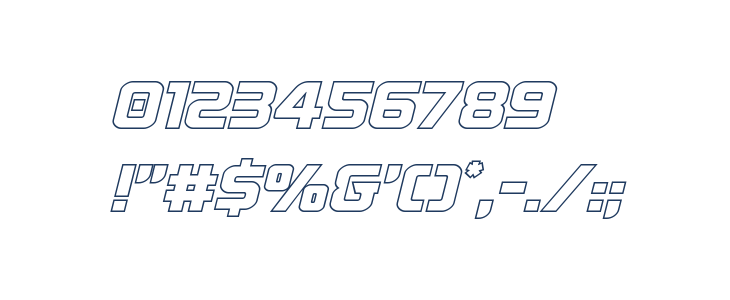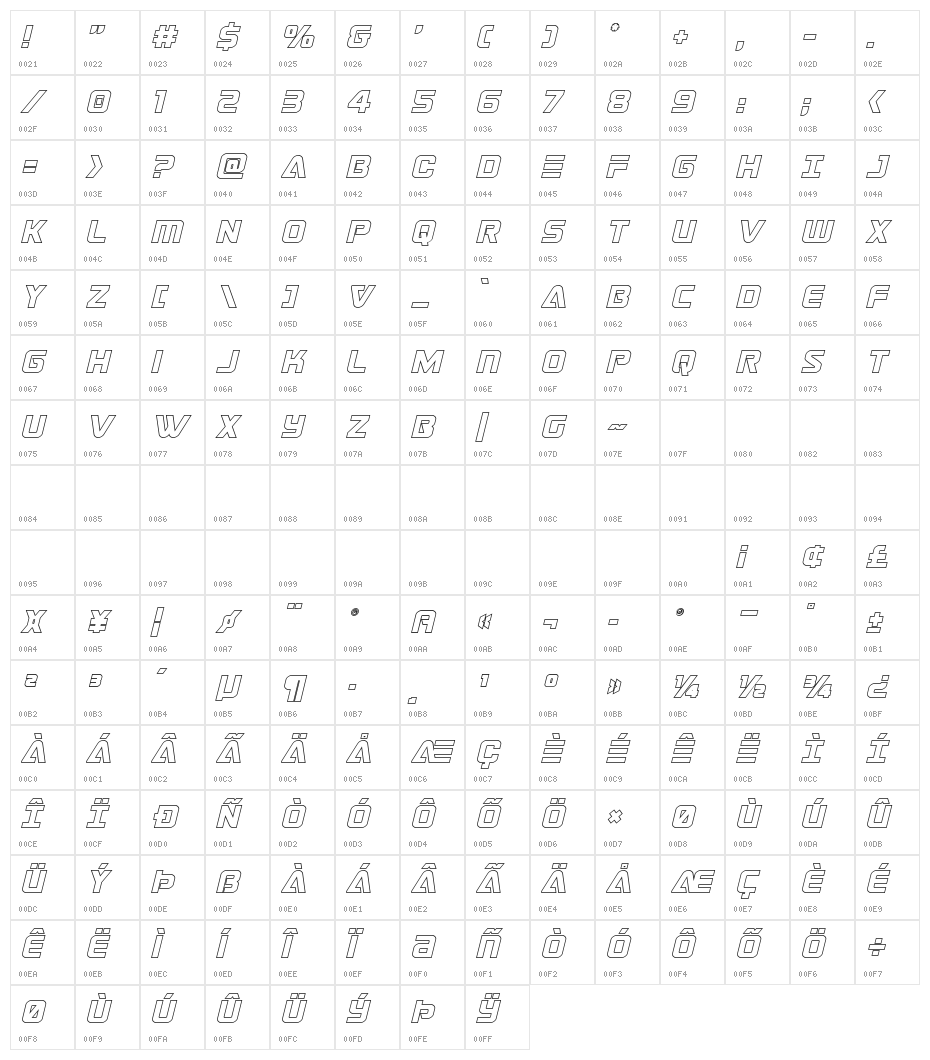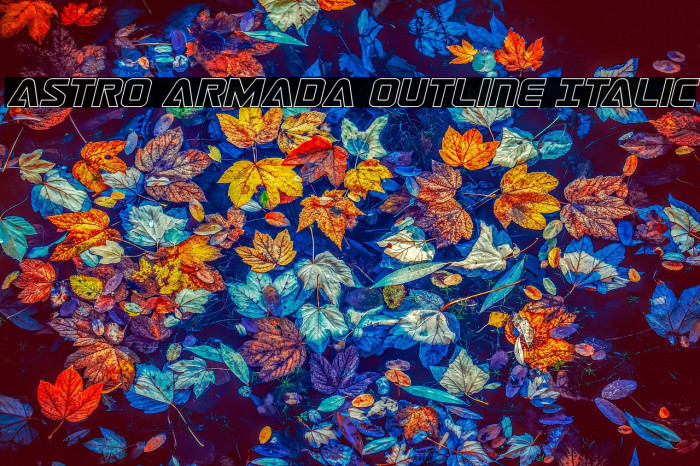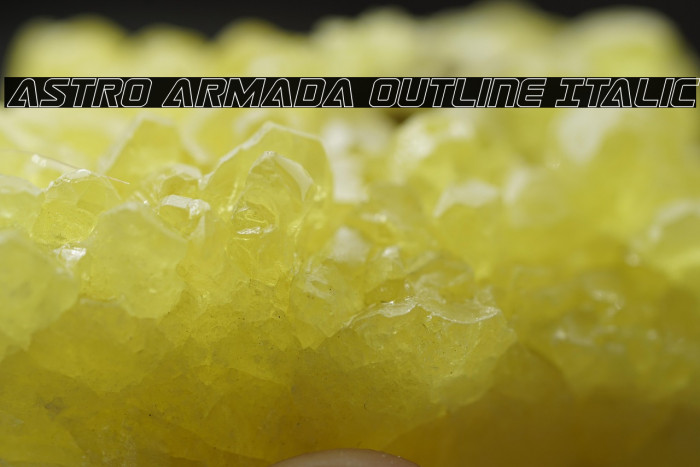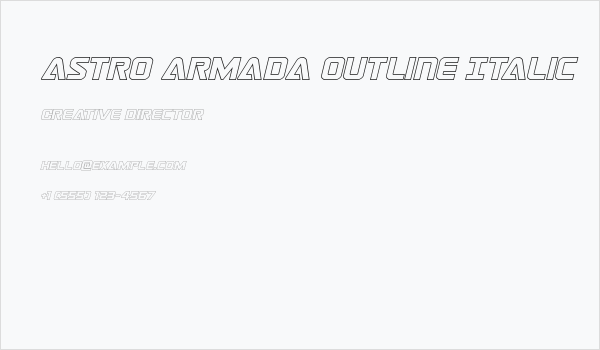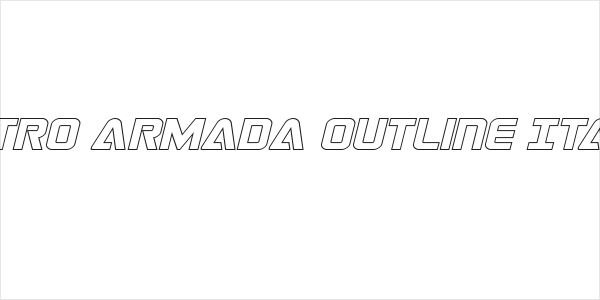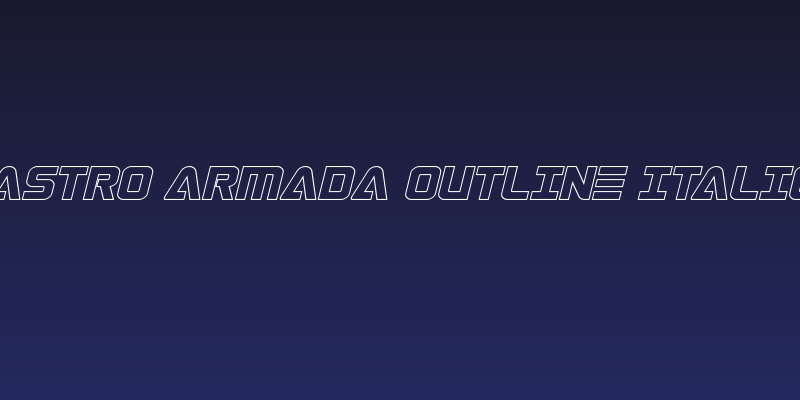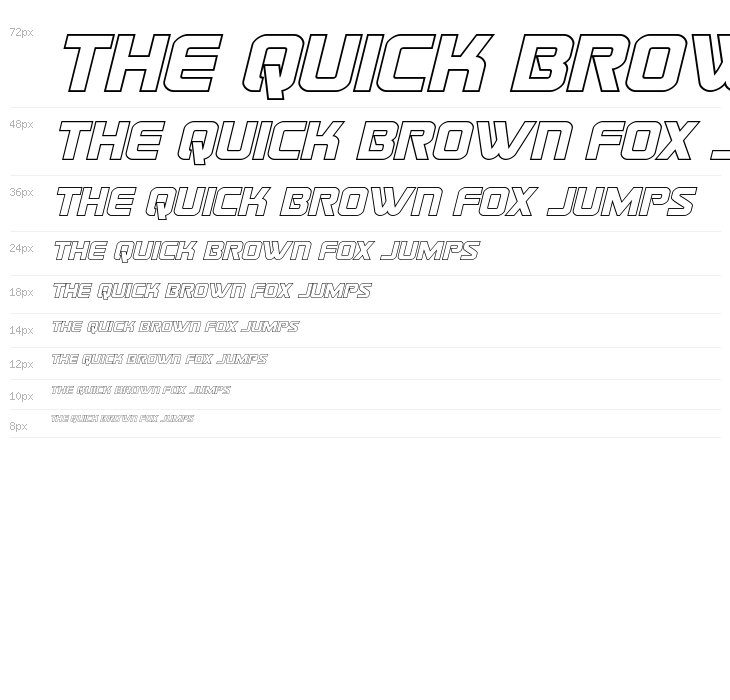
Astro Armada Outline Italic Font
Astro Armada Outline Italic Description
This font features a futuristic, geometric design with an outline style that gives it a sleek and modern appearance. The italicized slant adds a dynamic and forward-moving feel, making it ideal for projects that require a sense of speed or innovation. The characters are bold and distinct, with a consistent stroke width that maintains clarity even in the outlined form. The uppercase and lowercase letters are well-proportioned, and the numerals are easily distinguishable, ensuring readability. Special characters are included, adding versatility to the font's applications.